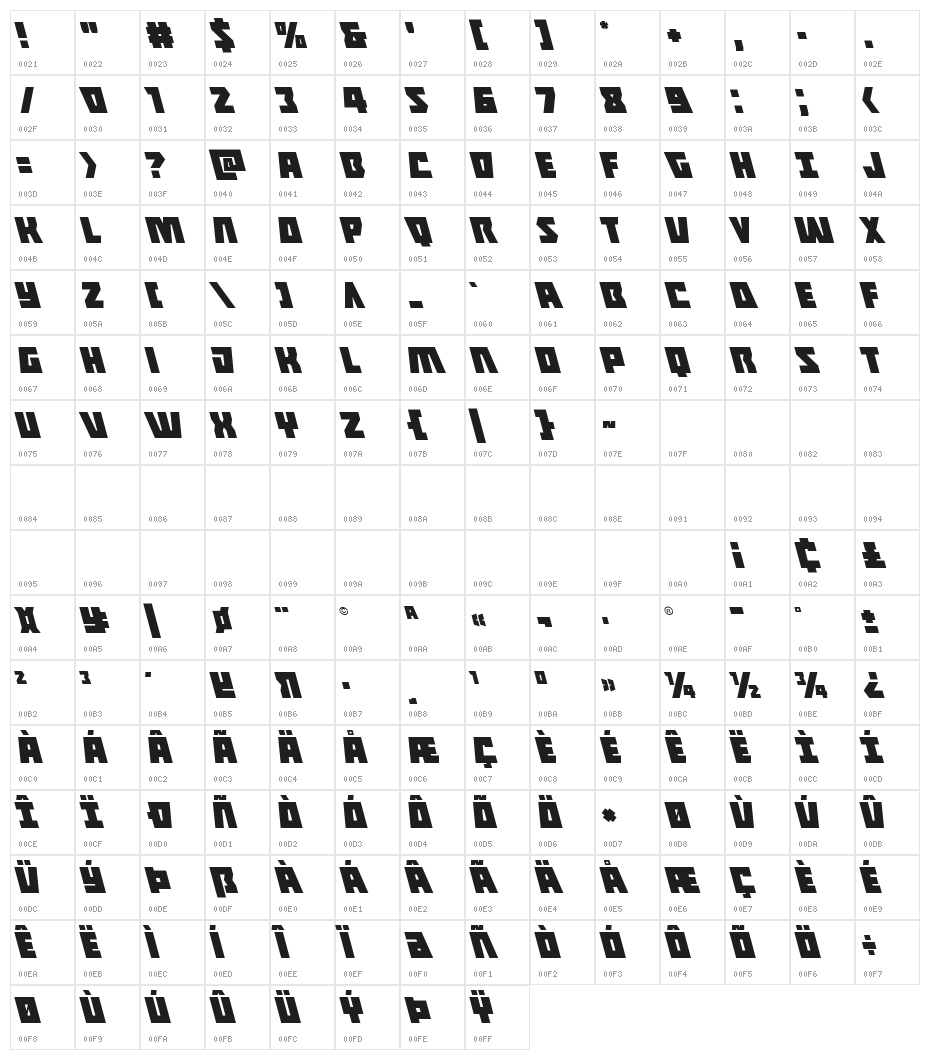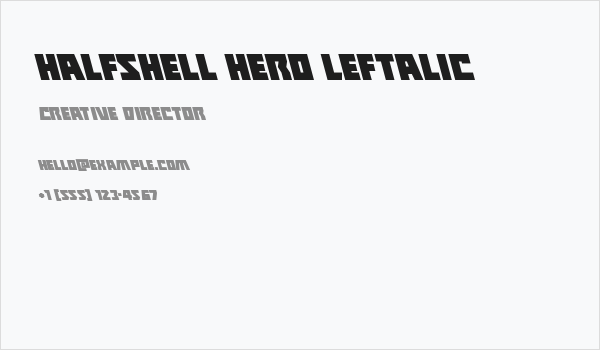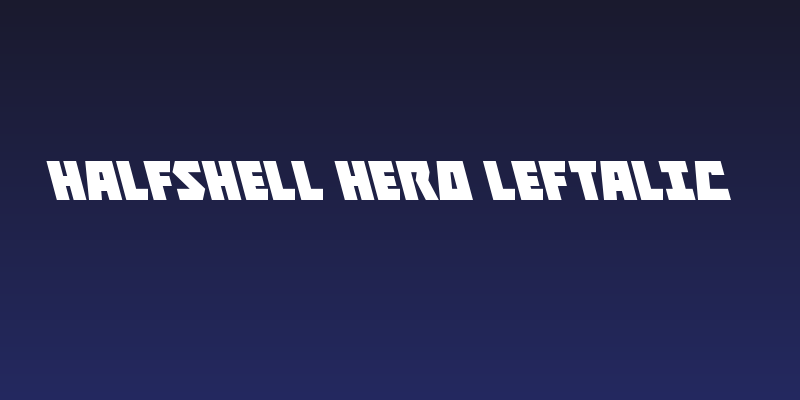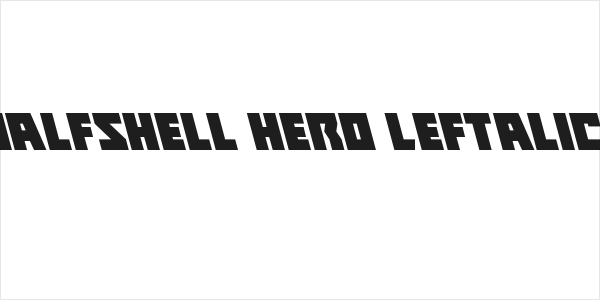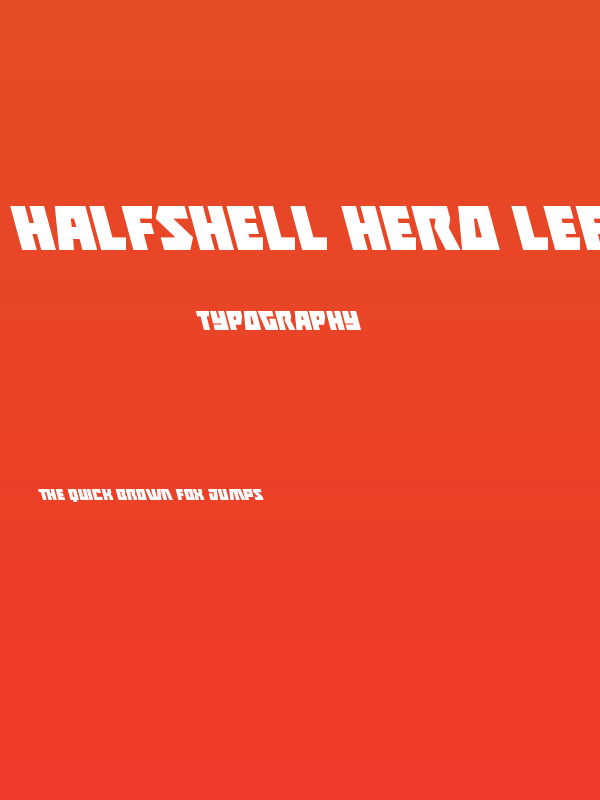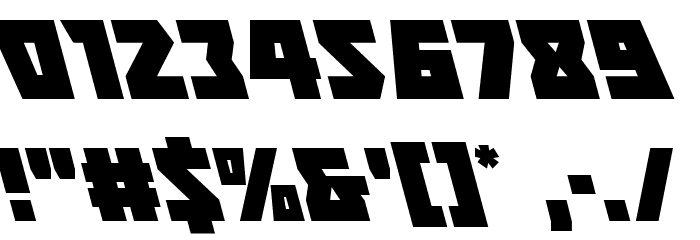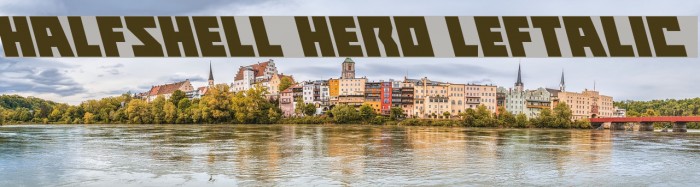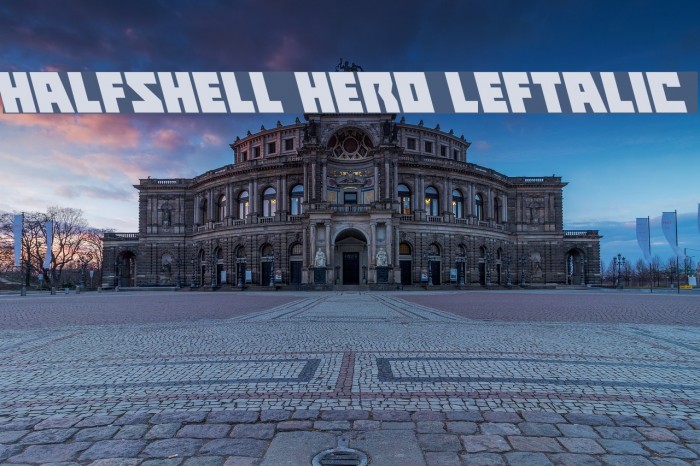
Halfshell Hero Leftalic Font
Halfshell Hero Leftalic Description
This font features a bold and angular design, characterized by its sharp edges and geometric shapes. The letters are heavily stylized, with a distinct slant that gives them a dynamic and energetic appearance. The uppercase and lowercase letters maintain a consistent style, with each character exhibiting a unique cut-out or notch that adds to the overall edgy aesthetic. The numbers and special characters follow the same design principles, ensuring uniformity across all glyphs. This font's striking appearance makes it ideal for projects that require a strong visual impact.
| Proposed Projects | Ideal for video game titles, movie posters, sports branding, and edgy graphic design projects. |